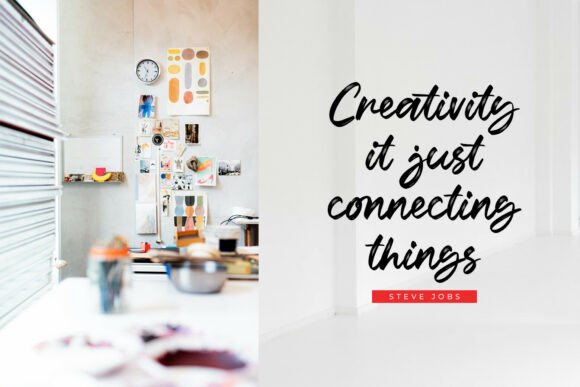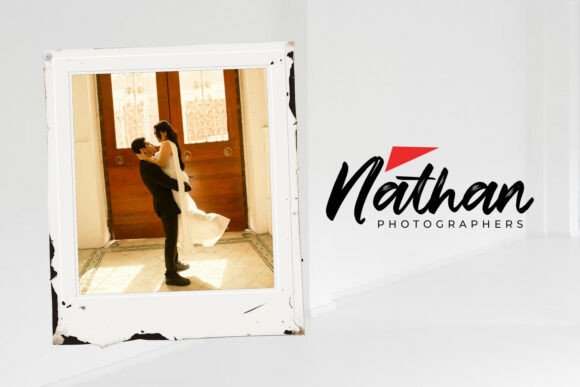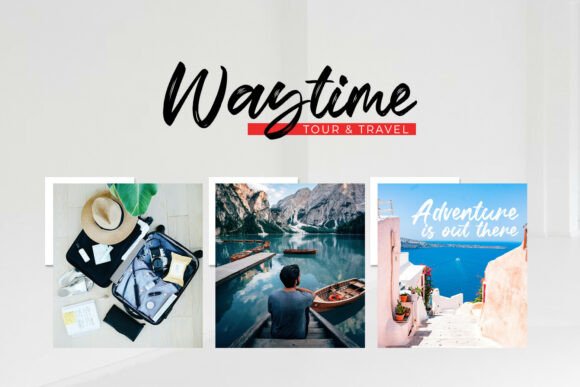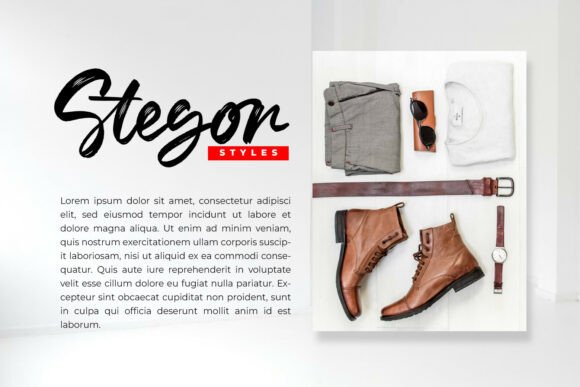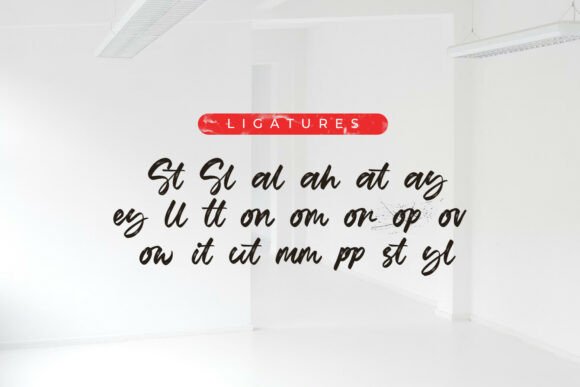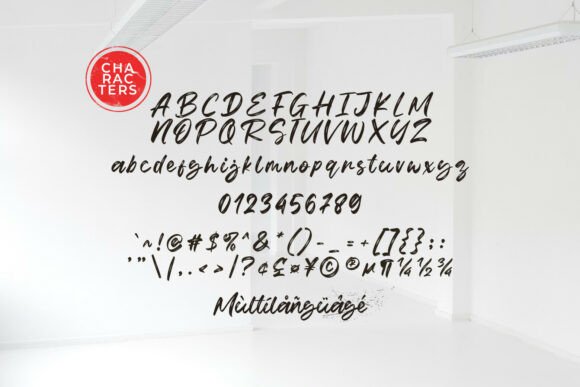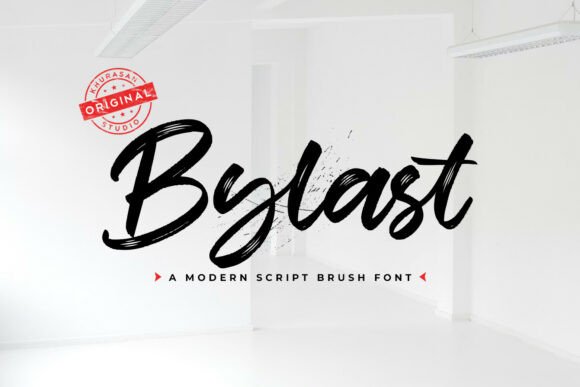
Introducing Bylast Font: Elevate Your Designs with Sophistication and Elegance
In the world of typography, few fonts manage to strike a balance between sophistication and high-energy flair. Bylast Font is one such exceptional typeface that brings the elegance of traditional calligraphy into the modern era. With its sweeping gestures and visible ink-flow textures, Bylast exudes a premium, boutique feel that is perfect for luxury branding, wedding invitations, and upscale event stationery.
The Characteristics of Bylast Font
Bylast is characterized by its fluid, dynamic strokes that mimic the natural flow of ink on paper. The font’s sweeping gestures give it a sense of movement and energy, while its visible ink-flow textures add a layer of depth and dimensionality. These features combine to create a typeface that feels both elegant and sophisticated, yet approachable and modern.
One of the standout features of Bylast is its premium, boutique feel. The font’s unique blend of traditional calligraphy and modern sensibilities makes it perfect for designers looking to add a touch of luxury to their projects. Whether you’re working on a high-end branding campaign, a wedding invitation, or an upscale event stationery, Bylast is the ultimate choice.
Using Bylast Font in Your Designs
Because Bylast possesses such a strong personality, it works best as a focal point paired with clean, light-weight sans-serifs. This contrast between the elegant, cursive strokes of Bylast and the simple, modern lines of a sans-serif font creates a visually appealing combination that adds depth and interest to any design.
When using Bylast in your designs, consider pairing it with a font like Open Sans, Lato, or Montserrat. These clean, modern sans-serifs provide a beautiful contrast to Bylast’s elegant, cursive strokes, creating a harmonious and balanced design.
The Benefits of Bylast Font
So why choose Bylast for your design projects? Here are just a few benefits of using this exceptional typeface:
- Elegance and Sophistication: Bylast brings a level of elegance and sophistication to any design, making it perfect for luxury branding, wedding invitations, and upscale event stationery.
- High-Energy Flair: Bylast’s sweeping gestures and visible ink-flow textures give it a dynamic, high-energy feel that’s sure to capture attention.
- Premium, Boutique Feel: Bylast’s unique blend of traditional calligraphy and modern sensibilities makes it perfect for designers looking to add a touch of luxury to their projects.
In conclusion, Bylast Font is a sophisticated yet high-energy script that brings the elegance of traditional calligraphy into the modern era. With its sweeping gestures, visible ink-flow textures, and premium, boutique feel, Bylast is the ultimate choice for luxury branding, wedding invitations, and upscale event stationery.
Whether you’re a designer looking to elevate your branding campaigns, or a crafter seeking to add a touch of elegance to your wedding invitations or event stationery, Bylast is the perfect choice. With its easy-to-use PUA encoding and versatile design, Bylast is sure to become a staple in your typography collection.